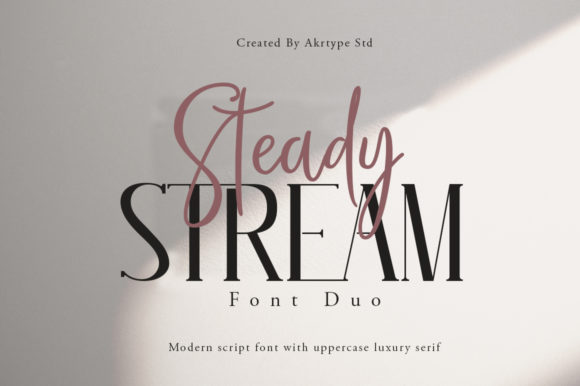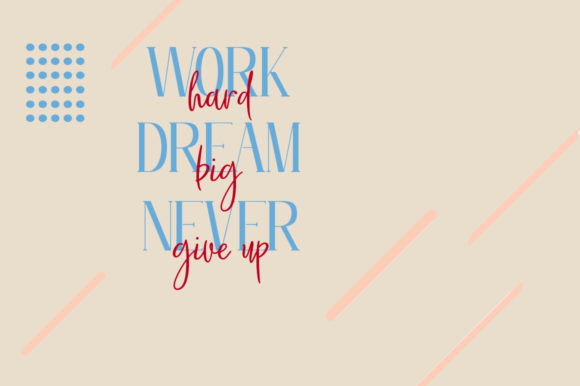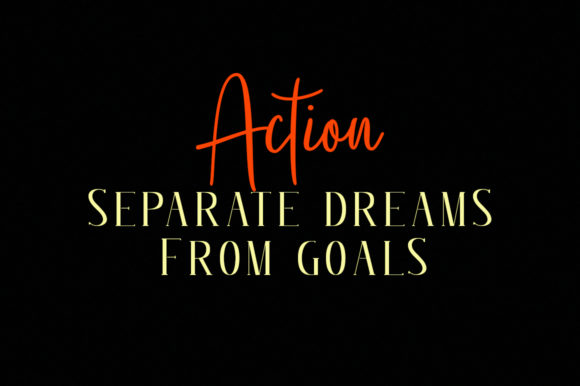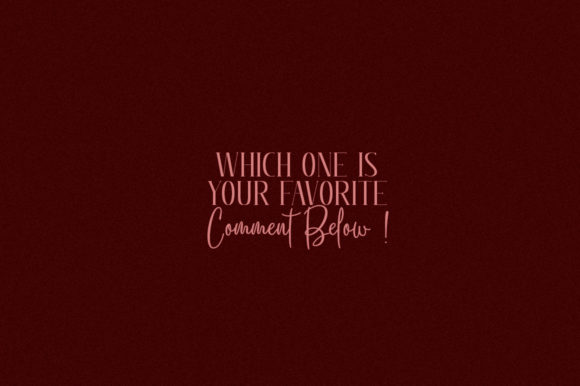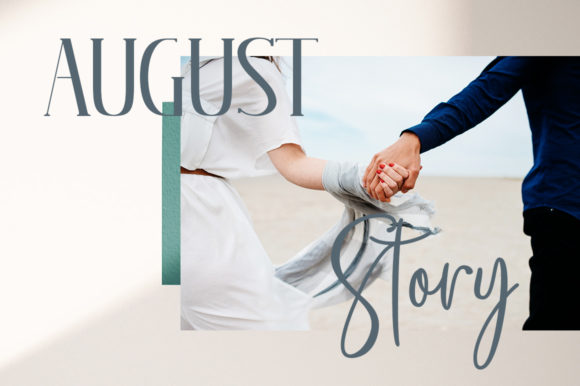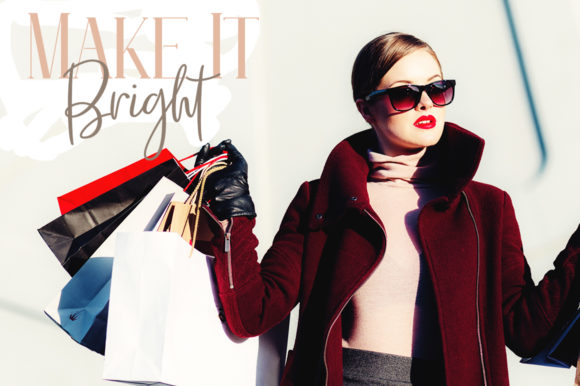
Steady Stream Font
About Steady Stream Font
Steady Stream is a modern duo font. It features a beautiful script with a luxury serif uppercase. Combining these two fonts on your next design will give a great and sophisticated feel.
It will elevate a wide range of design projects to the highest level, be it branding, headings, wedding designs, invitations, signatures, logos, labels, and much more!